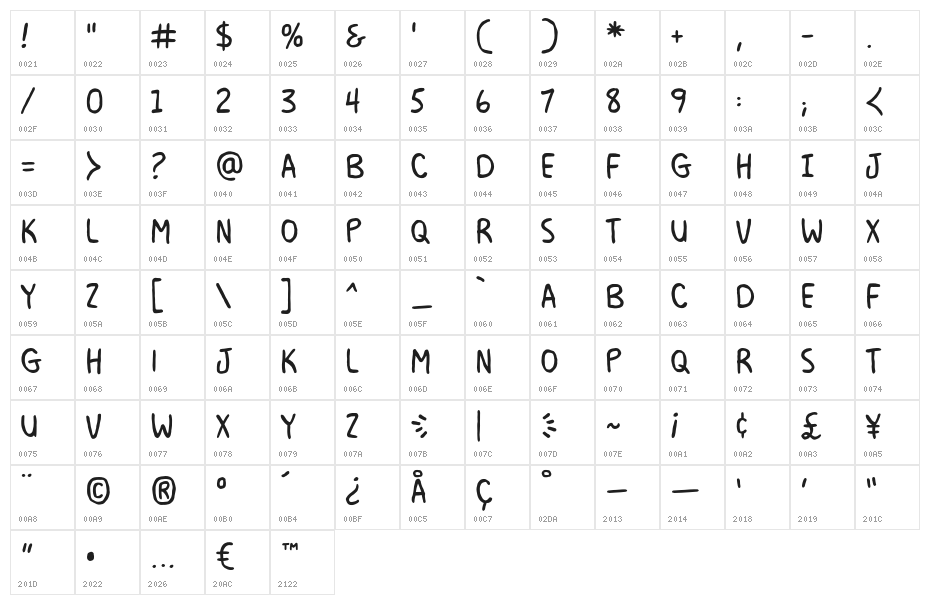
MilkMustacheBB Font
MilkMustacheBB Description
This playful and whimsical font features a handwritten style with rounded, slightly irregular characters that give it a friendly and approachable appearance. The strokes are consistent in width, providing a uniform look across all characters. The uppercase and lowercase letters maintain a casual and informal vibe, making it suitable for projects that require a personal touch. The numbers and special characters are designed to match the overall style, ensuring coherence throughout. Its unique charm makes it stand out, perfect for creative and fun applications.
| Overall Style | Whimsical |
| Proposed Projects | Ideal for children's books, greeting cards, playful branding, and informal invitations. |